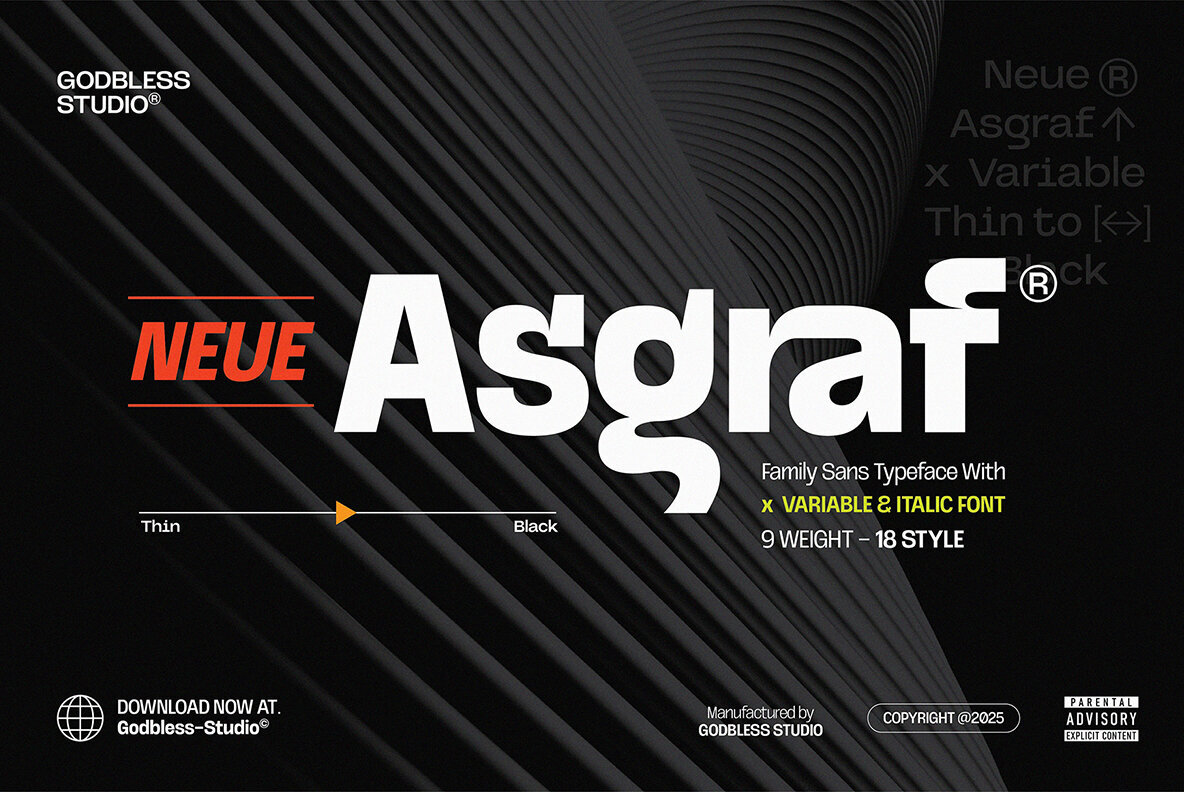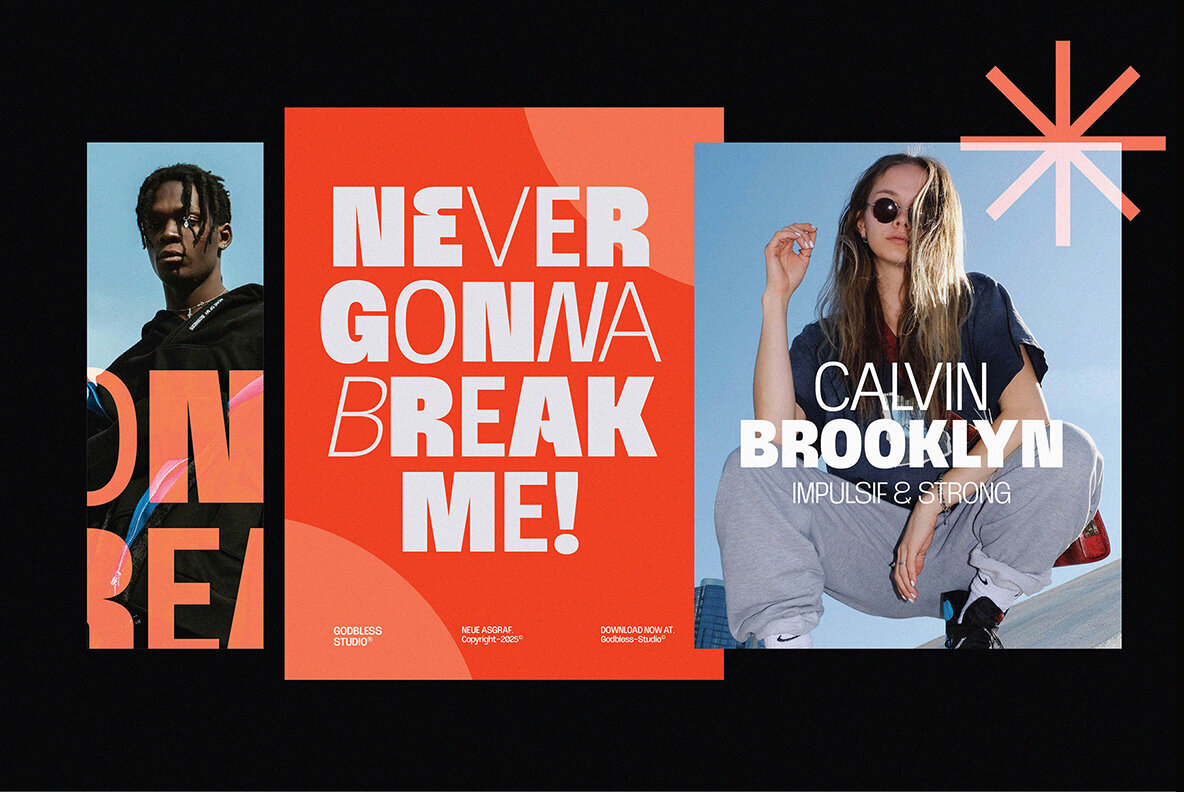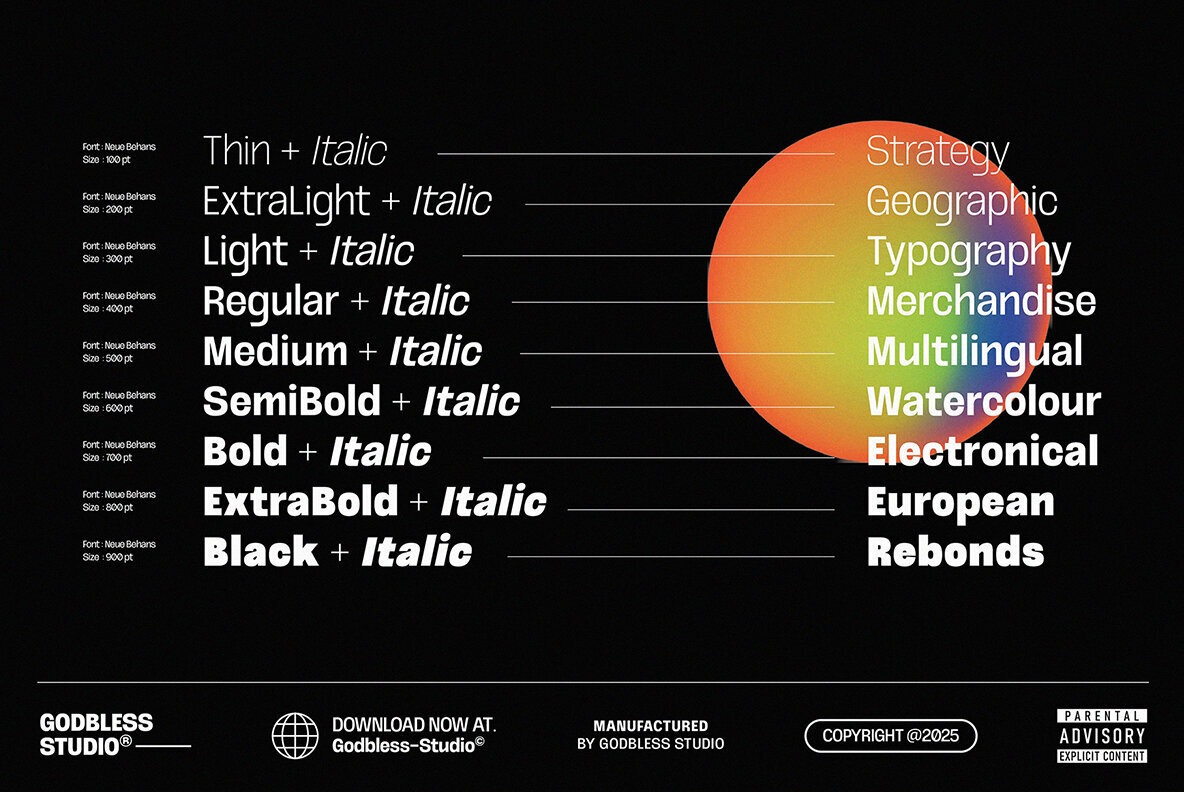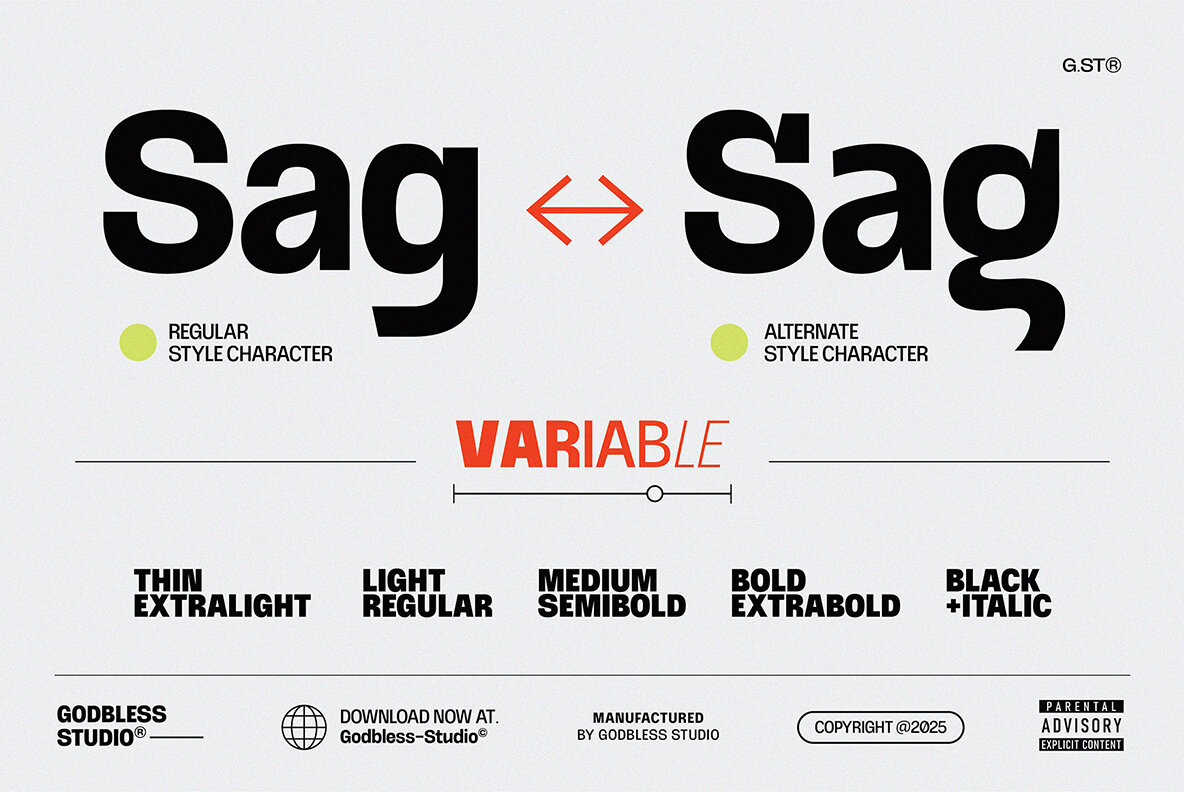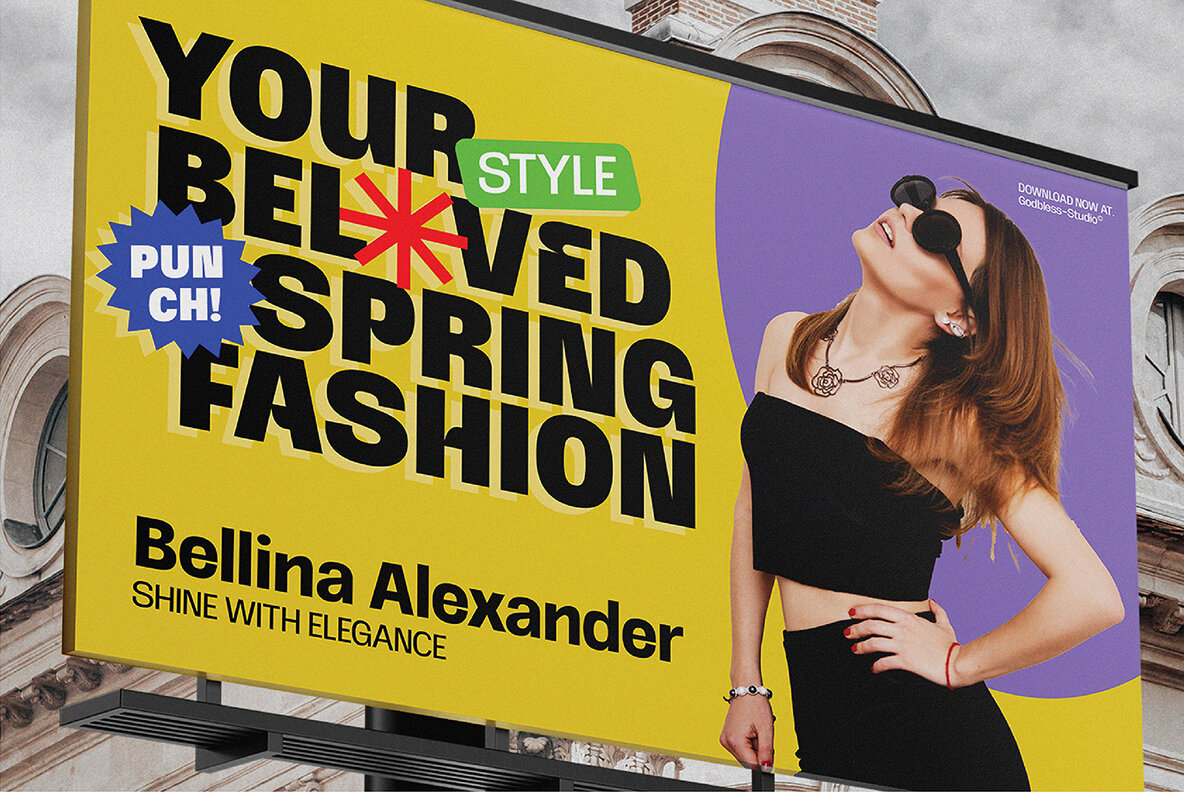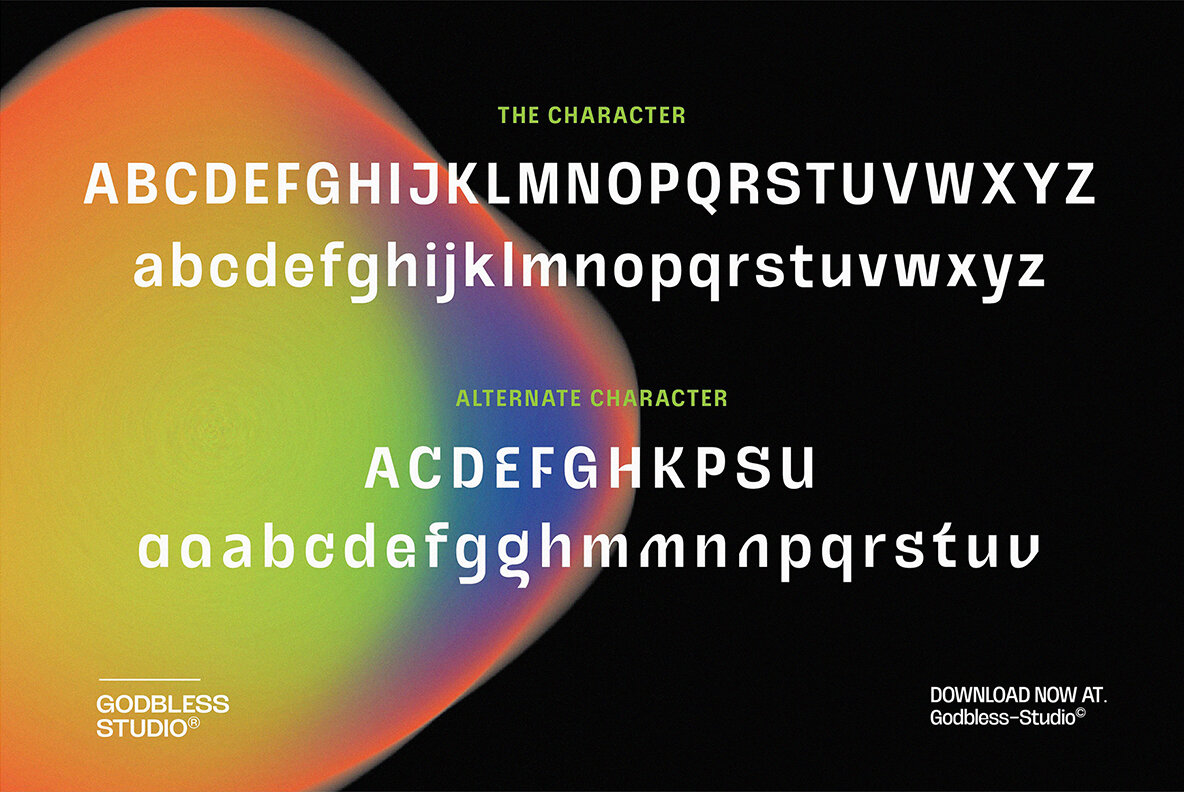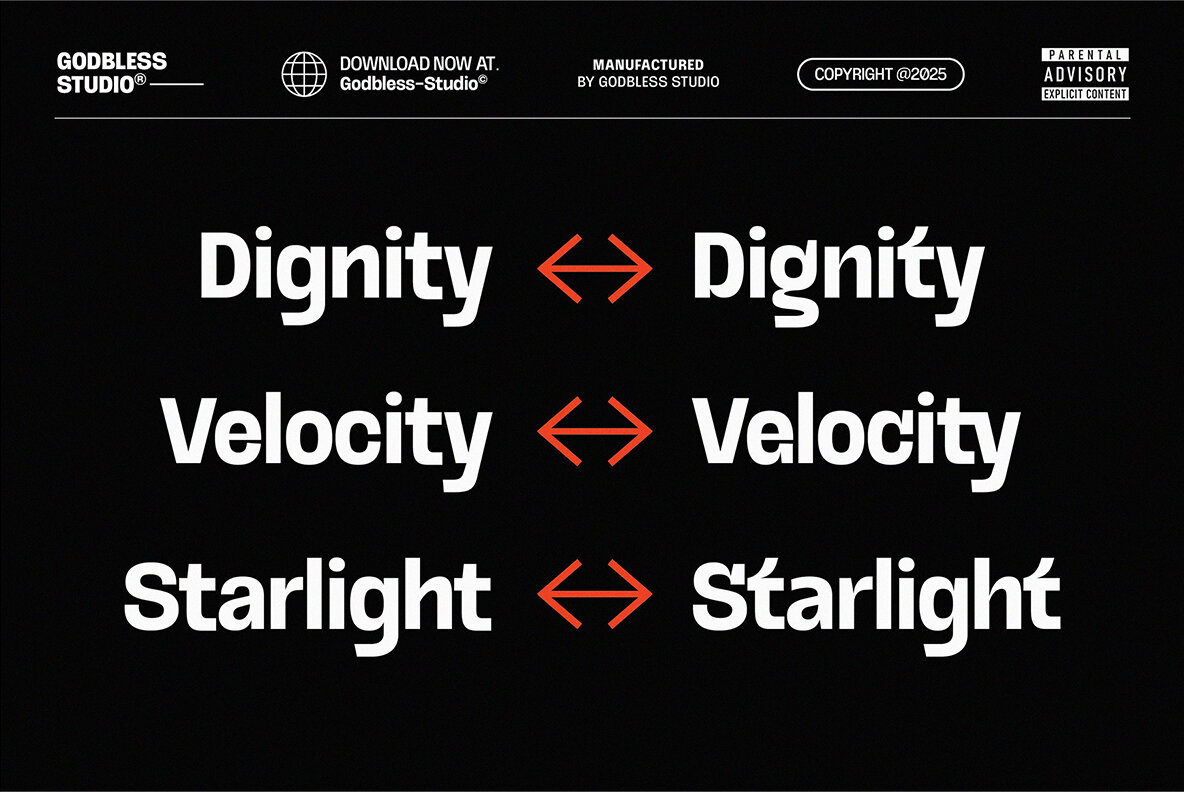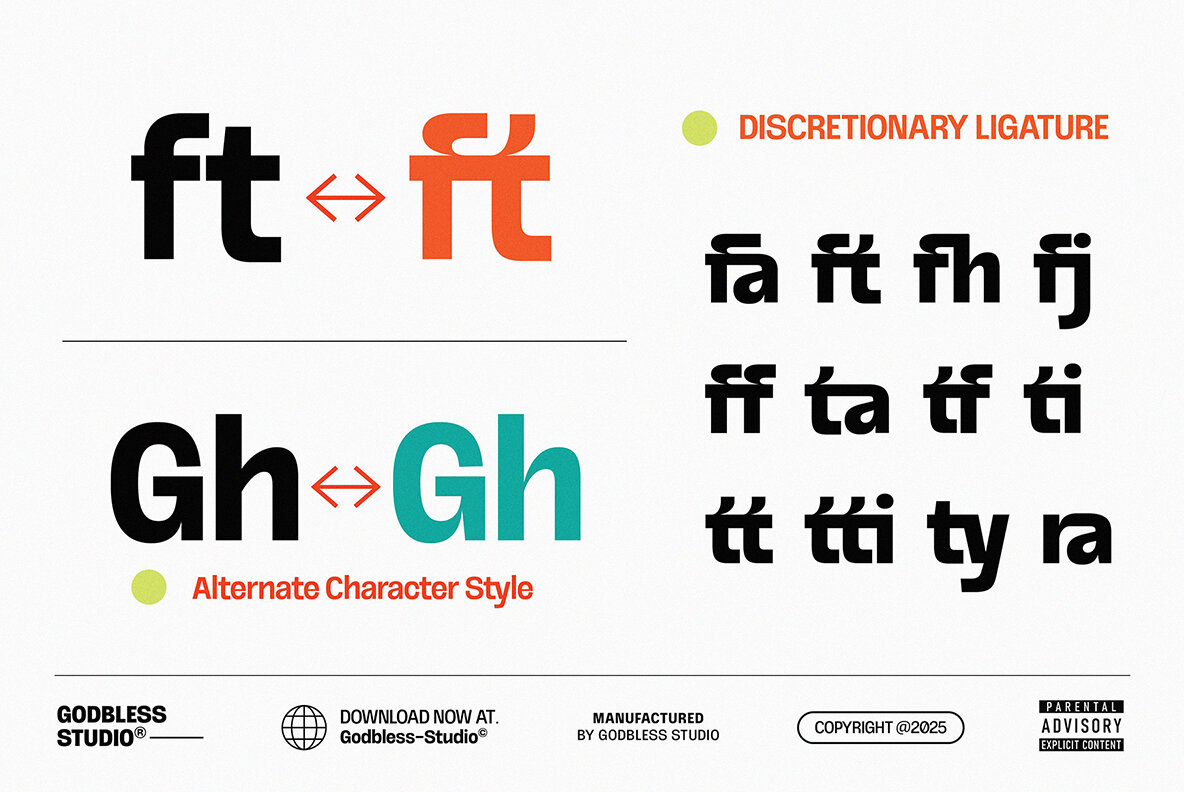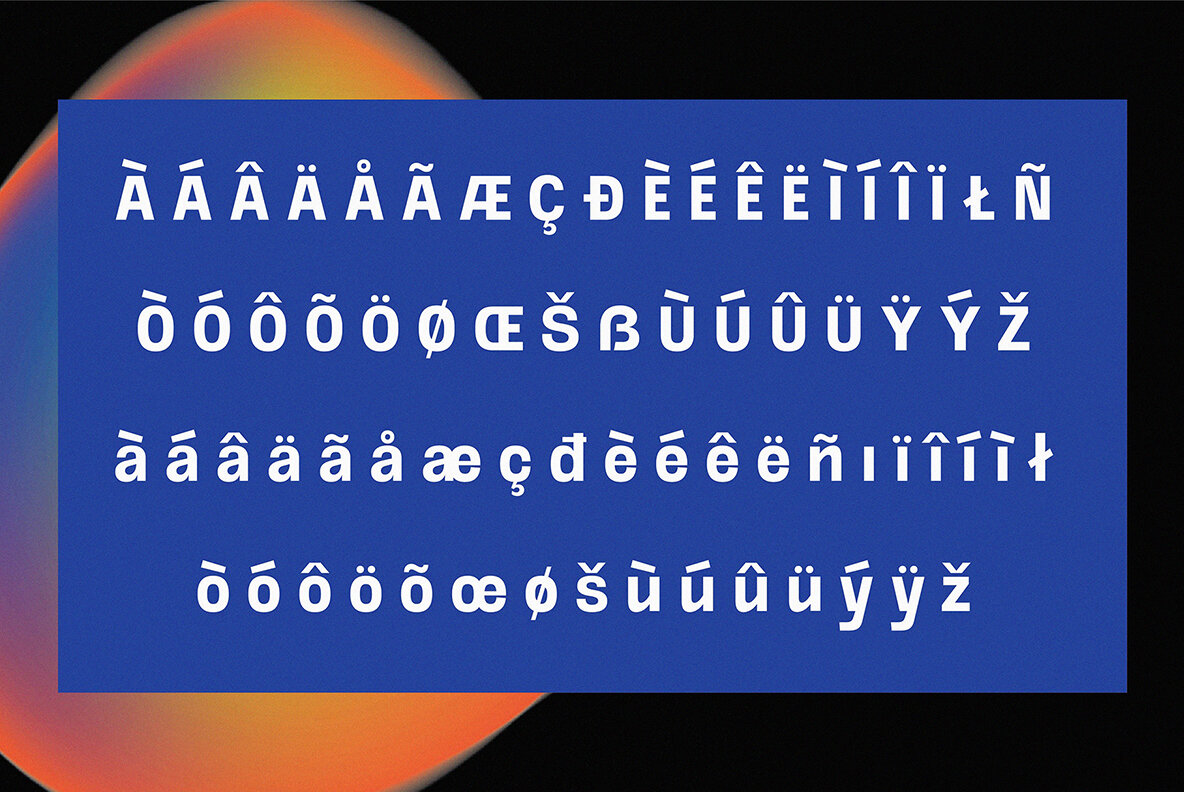
Neue Asgraf Font
Neue Asgraf, a modern sans-serif typeface, perfectly marries experimental flair with sophisticated style. This display font combines clean geometric precision with striking alternate characters, offering a unique visual identity for all creative projects. Whether for bold headlines or refined branding, Neue Asgraf stands out—versatile, elegant, and confidently distinct. Embrace it as your new design essential. Neue Asgraf invites graphic designers, art directors, and creative entrepreneurs to articulate bold ideas with precision. More than just a typeface, it's an adaptable creative tool that aligns with your vision. Includes:Neue Asgraf: Experimental Elegance in Sans-Serif